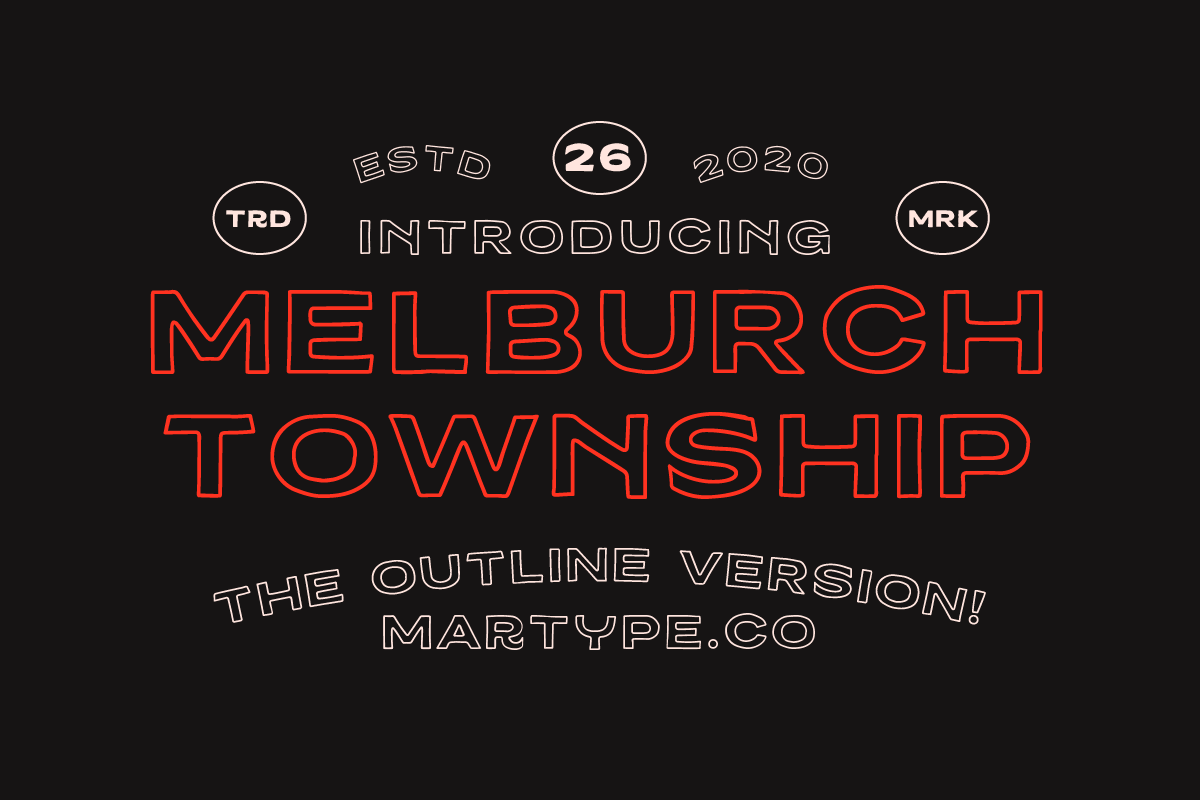
Melburch Typeface Outline Version
Melburch Typeface is perfect for urban cafe branding, modern city guidebooks, contemporary architecture signage, metropolitan lifestyle magazines, trendy boutique logos, cosmopolitan restaurant menus, sophisticated travel materials, and stylish urban advertising campaigns.
This font is exciting because it captures the sophisticated energy of metropolitan living with refined letterforms that embody the cultural richness and modern elegance of world-class cities. Melburch Typeface brings cosmopolitan sophistication to designs through its balanced geometry and contemporary styling that feels both internationally minded and locally authentic. The font's urbane character makes it perfect for brands that want to communicate cultural awareness and metropolitan sophistication while maintaining approachable elegance.
The Melburch Typeface family includes Regular, Bold, Light, Italic, Condensed, and Extended variants, each designed to capture different aspects of urban sophistication while maintaining the font's characteristic metropolitan appeal and cultural refinement. The character set features subtle details that enhance the font's connection to modern city life and international culture.
Whether you're creating branding for urban businesses, designing materials for cultural events, or developing content that needs to project metropolitan sophistication, Melburch Typeface Free Download delivers the cultured typography that connects with cosmopolitan audiences. This remarkable typeface transforms text into expressions of urban elegance that resonate with the same cultural depth and sophisticated energy found in the world's greatest cities, ensuring your message communicates the refined taste and worldly perspective that defines truly metropolitan living and international cultural awareness.